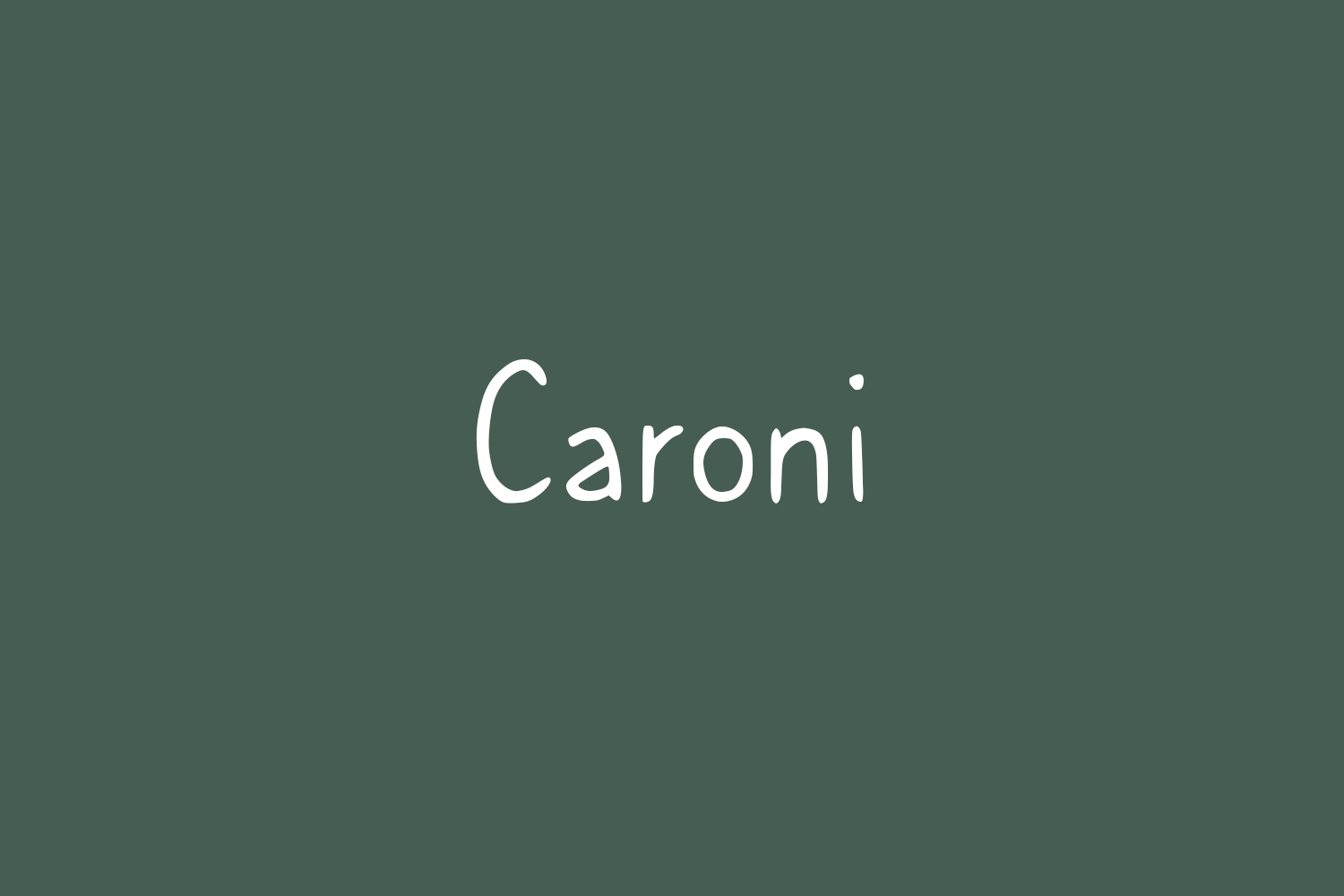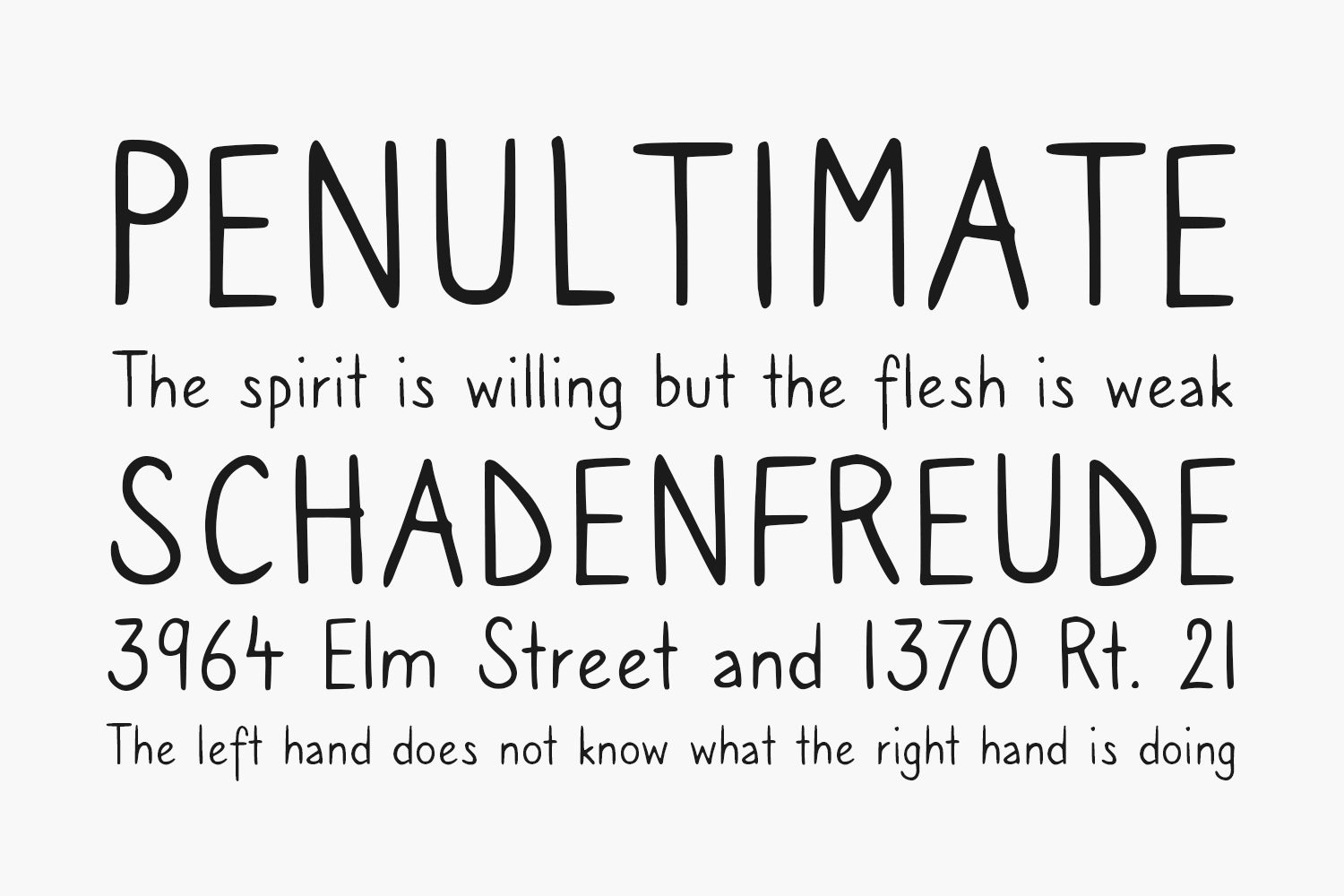
Caroni Free Font is a handwritten font that was created especially for longer texts – it is, therefore, clean and easy to read, yet it’ll give your projects that special, handmade touch. Multilingual support is included for Western, Central and Eastern European languages.
Caroni is also the name of a swamp and bird sanctuary on the Caribbean island of Trinidad, with really cool mangrove trees and beautiful scarlet red birds.